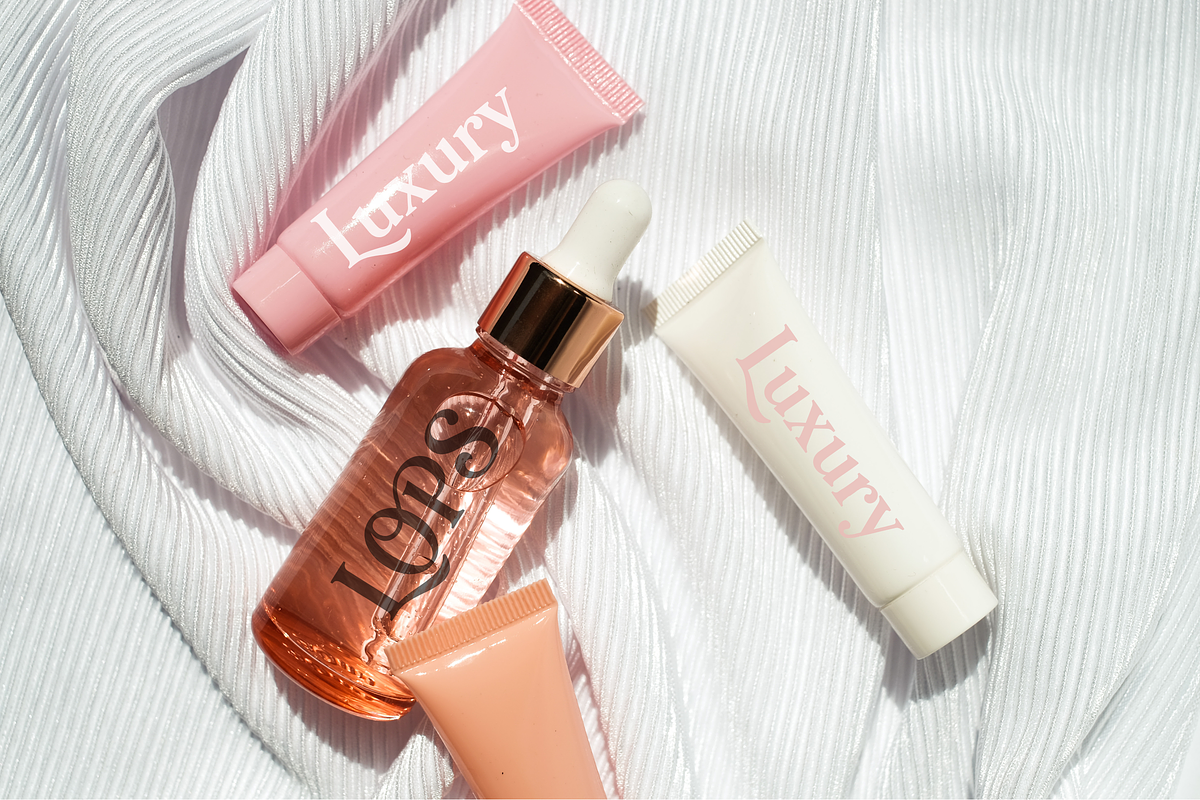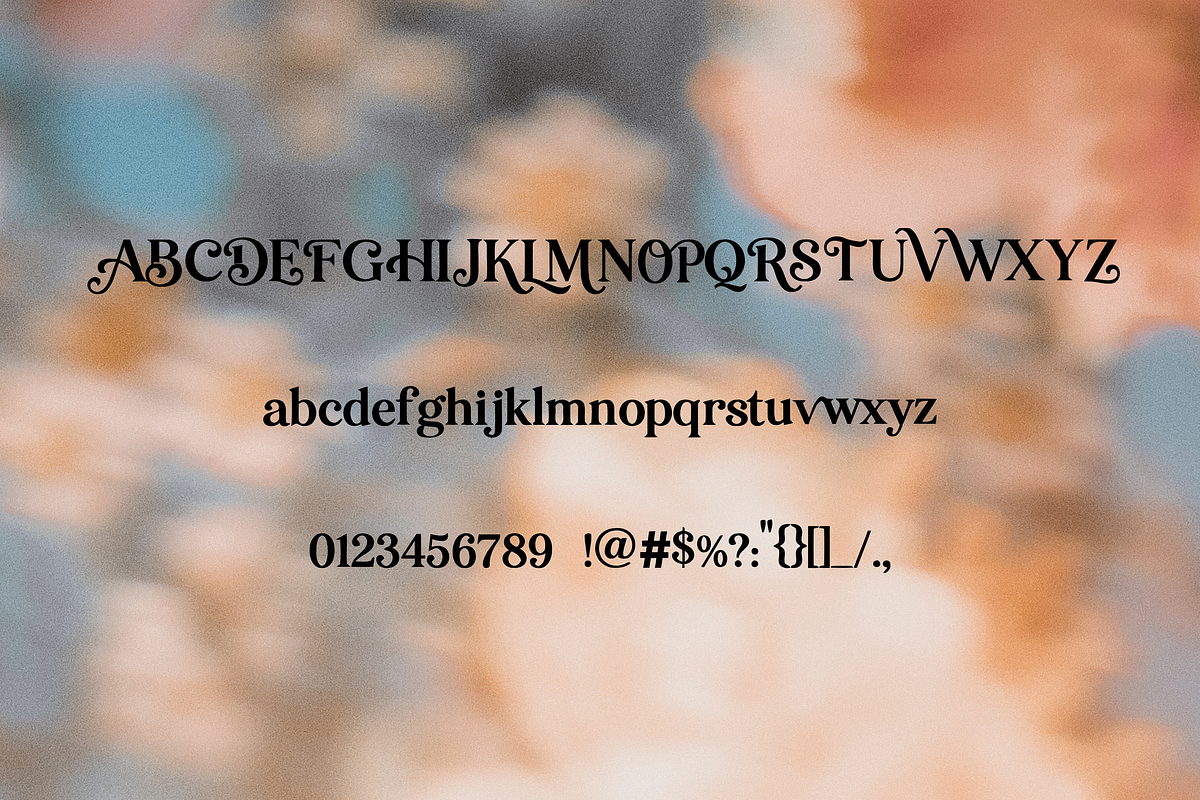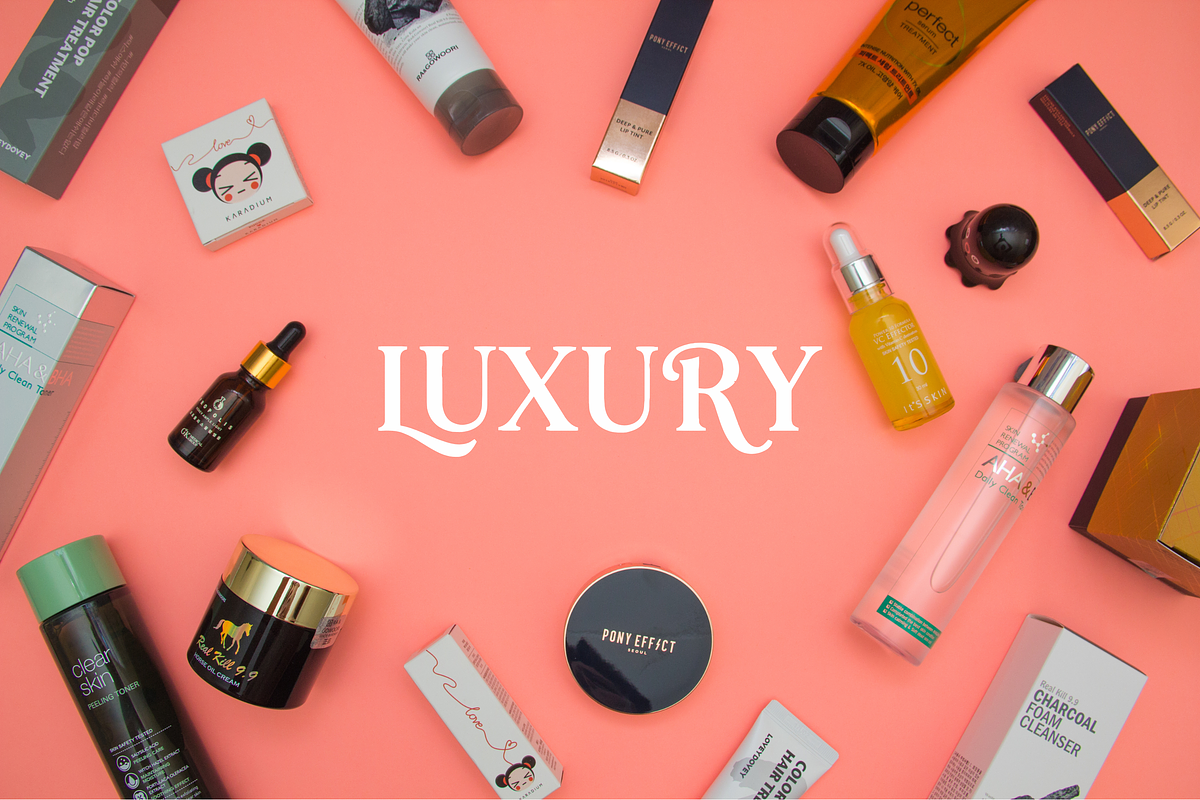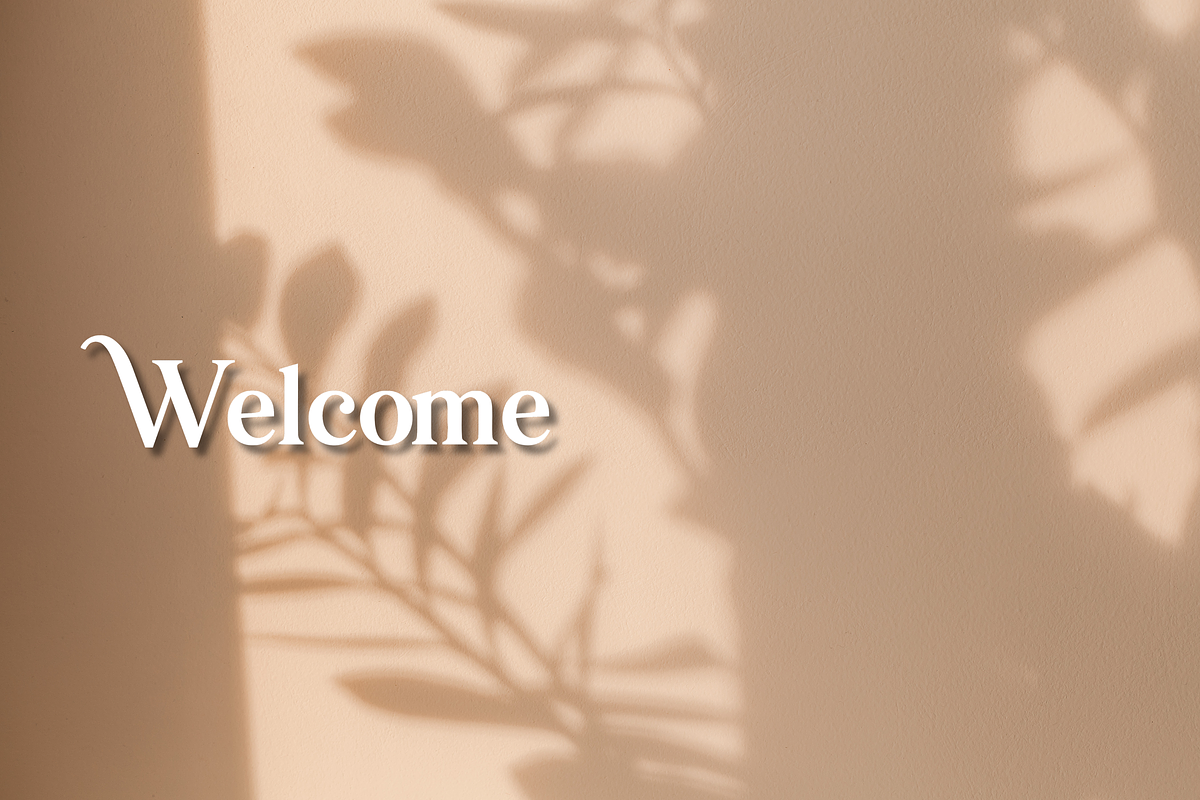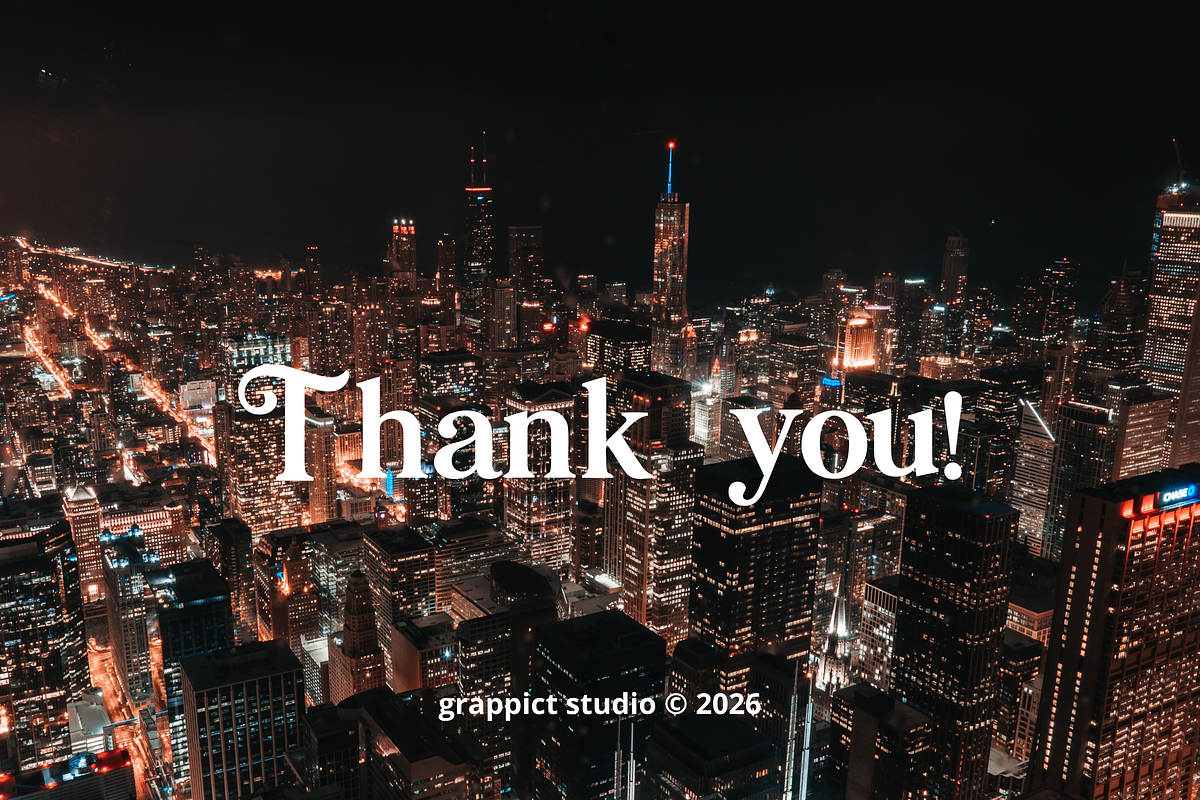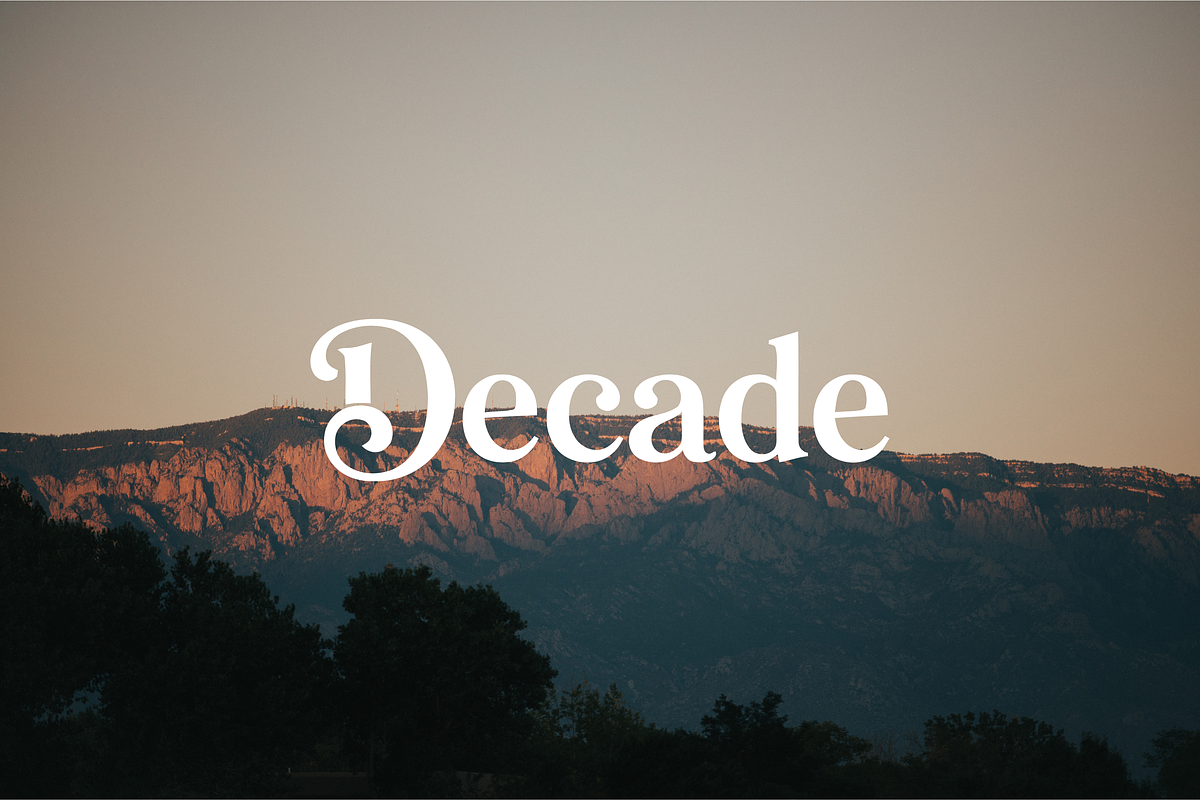
Lopman - Elegant Display Font
Introducing Lopman, a sophisticated display font that perfectly balances classic elegance with decorative flair. Featuring beautifully crafted uppercase letters with unique, flowing swashes alongside a clean, legible serif lowercase, this typeface is designed to make your projects stand out.
Ideal for:
Luxury Branding & Logo Design
Wedding Invitations & Stationery
Editorial & Magazine Layouts
Eye-catching Headlines
Premium Product Packaging
Uppercase (with decorative swashes)
Lowercase (classic serif)
Elevate your typography and give your designs a timeless, romantic touch with the Lopman Display Font.